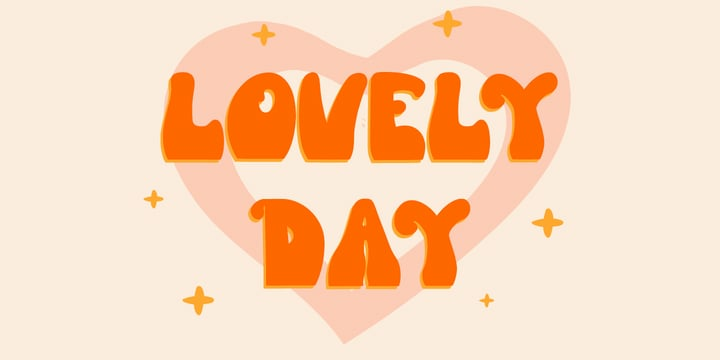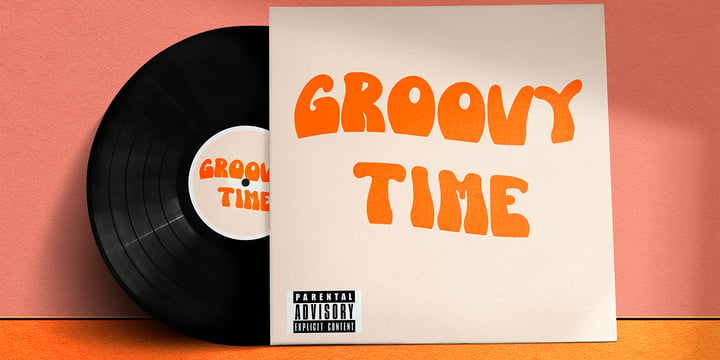
Nice Trendy Font
Nice Trendy FontNice Trendy – A Groovy Typeface is a font with distinctive handwritten characters perfect for branding projects, logos, wedding designs, media posts, advertisements, product packaging, product designs, labels, photography, watermarks, invitations, stationery, and any project who need handwritten dishes.